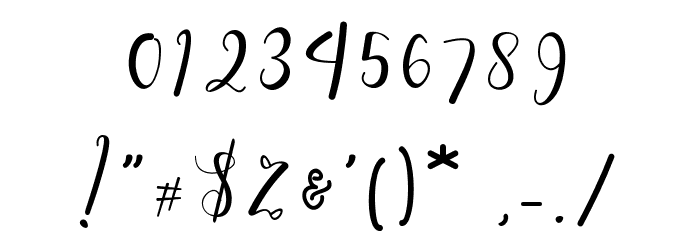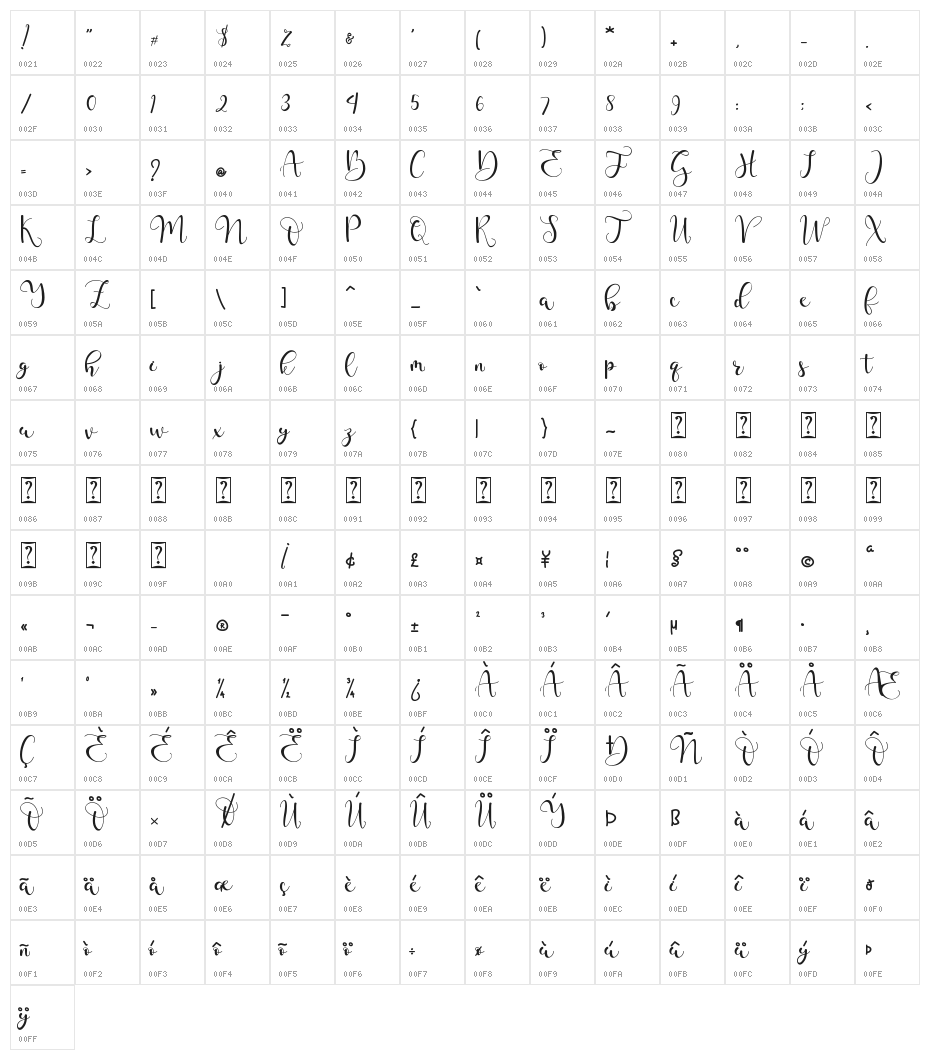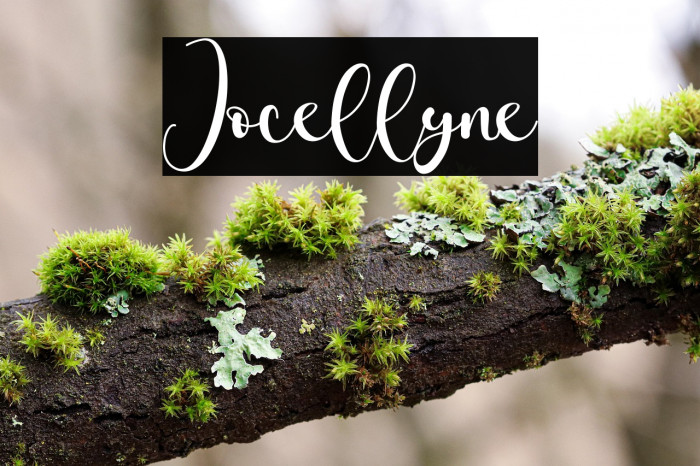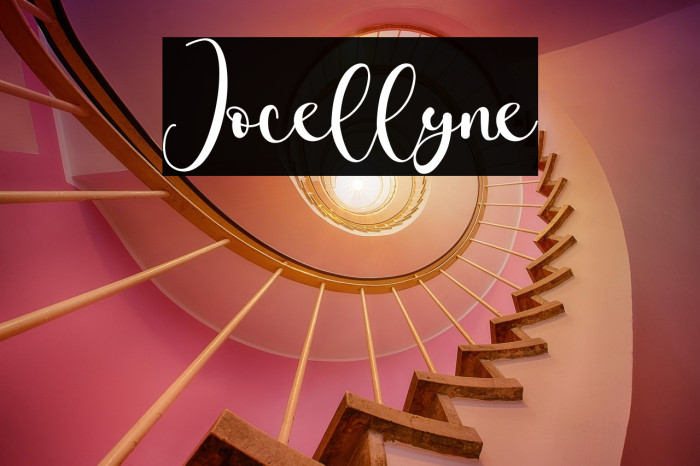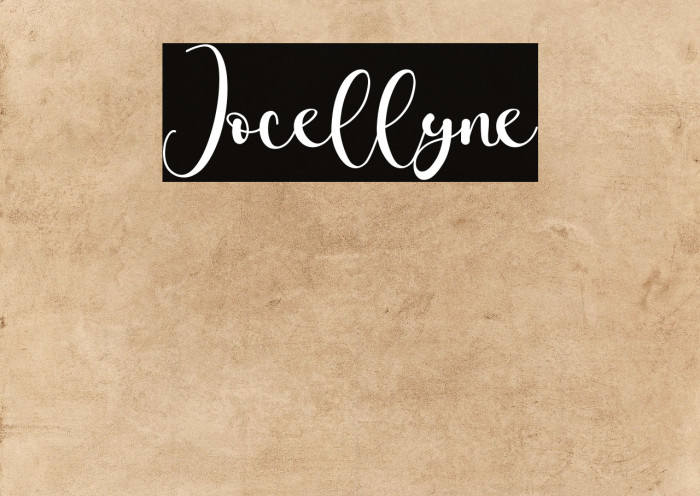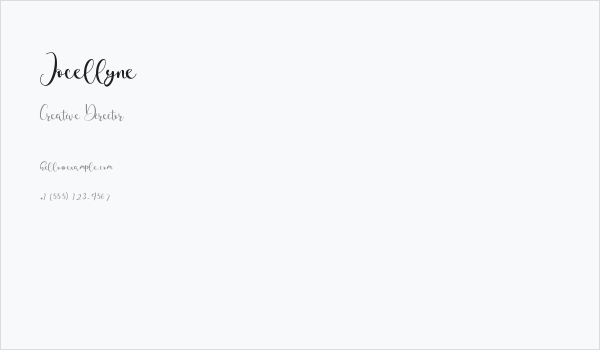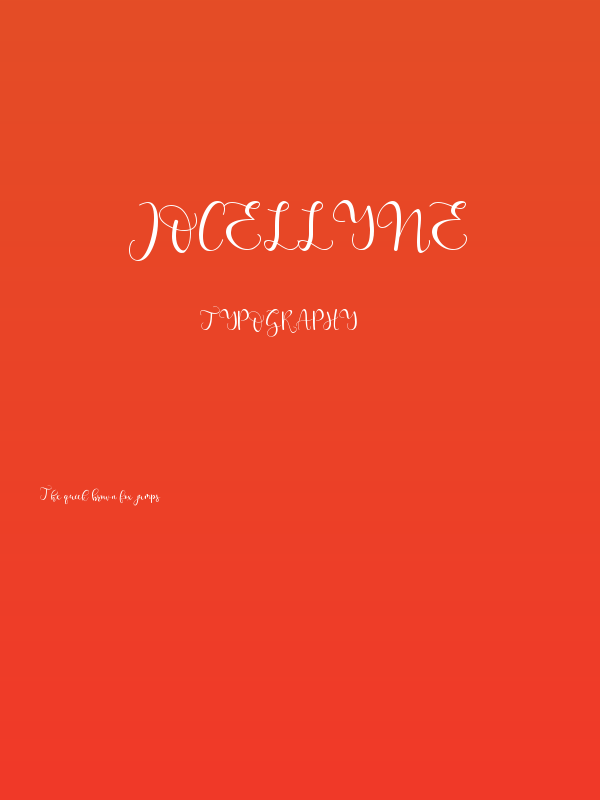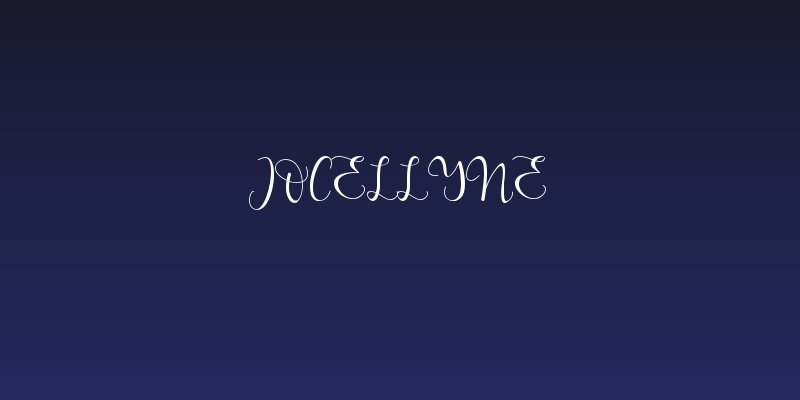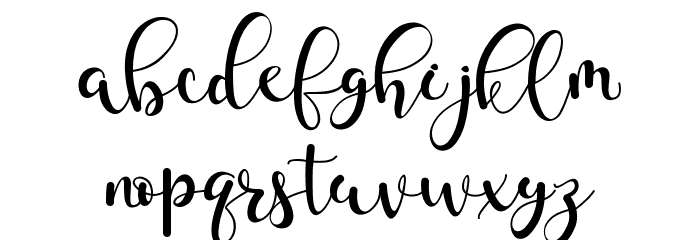
Jocellyne Font
Jocellyne Description
This elegant script font features flowing, interconnected letters with a calligraphic style. The uppercase characters are ornate, with sweeping curves and flourishes that add a touch of sophistication. The lowercase letters maintain a consistent flow, enhancing readability while preserving the decorative nature of the font. Numbers and special characters are designed to complement the overall aesthetic, making this font suitable for a variety of creative applications. Its artistic flair and graceful lines make it ideal for projects that require a personal touch.